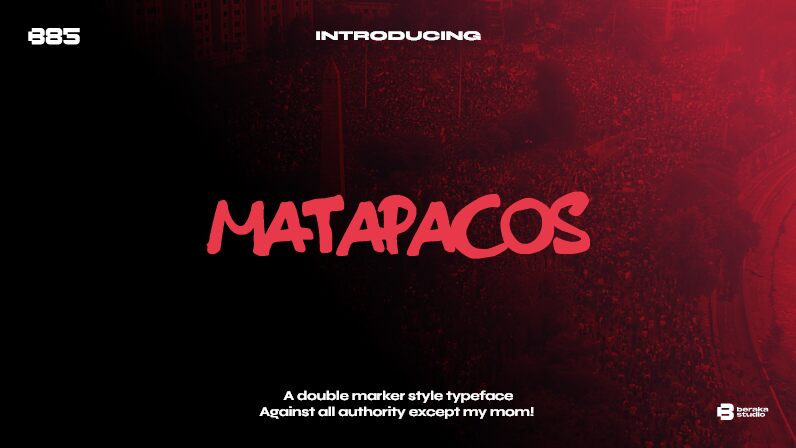
Matapacos DEMO - B85 Regular
Matapacos font is a free handwritten typeface by B85 that brings the supportive spirit of Matapacos to different types of digital, and maybe even printed, designs. The font has its letters drawn in an informal style that accommodates both light-hearted characters and serious, sometimes rebellious ones.
A present-day essential for catchy displays for marketing campaigns as well as those used to support certain causes like product labels, posters, engaging headlines on web pages, and mobile applications. Fonts in this manner have even acquired popularity in apparel design and other branding purposes.